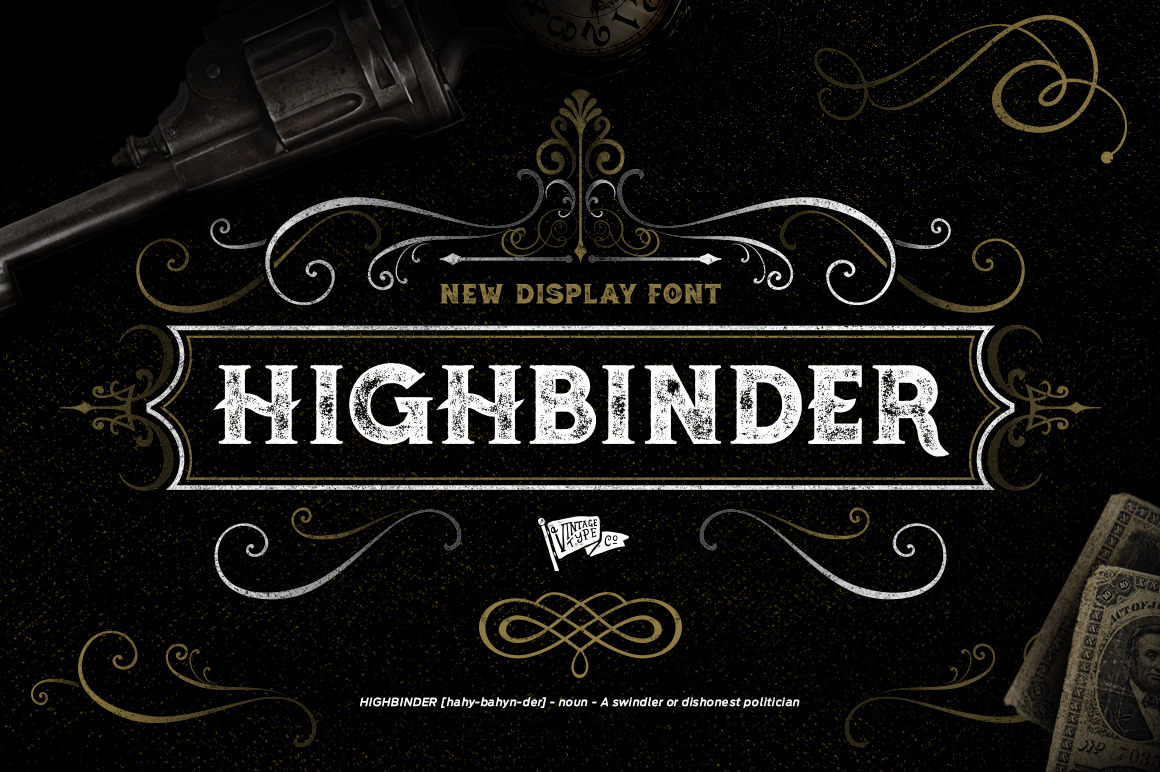
Highbinder Display Font was inspired by prohibitionist era typography. The font comes in a clean and rough style (WARNING: the rough font file is quite large so give it a second to install), supports latin languages, and is perfect for Logos, Posters, Mock-Ups, and much more!